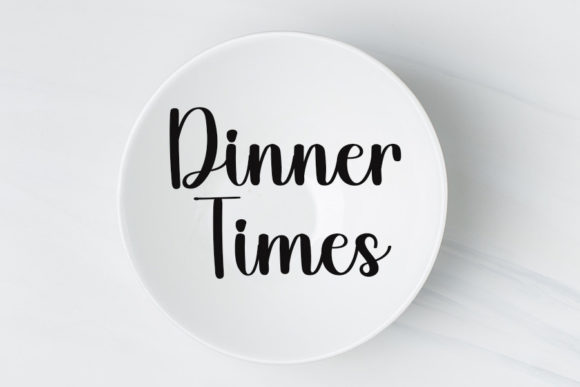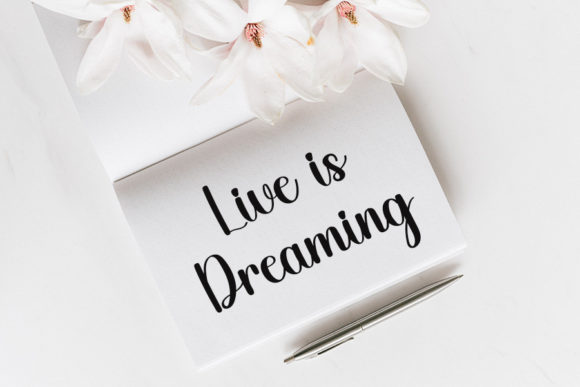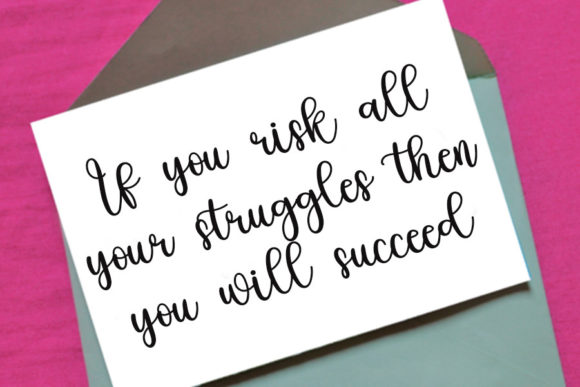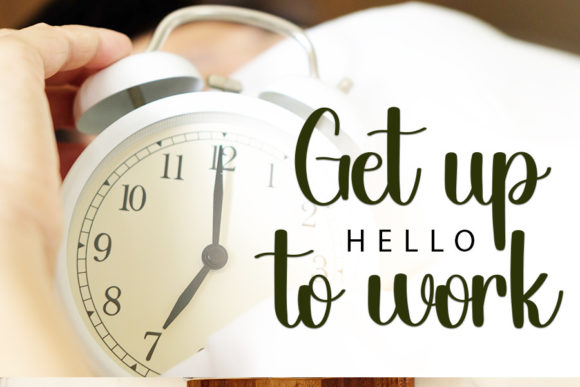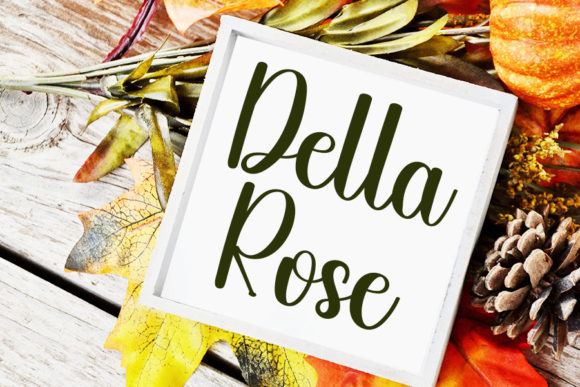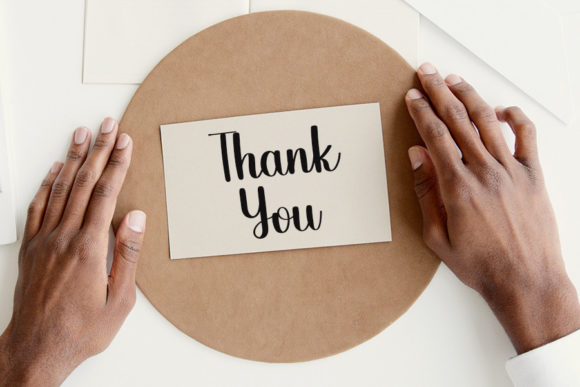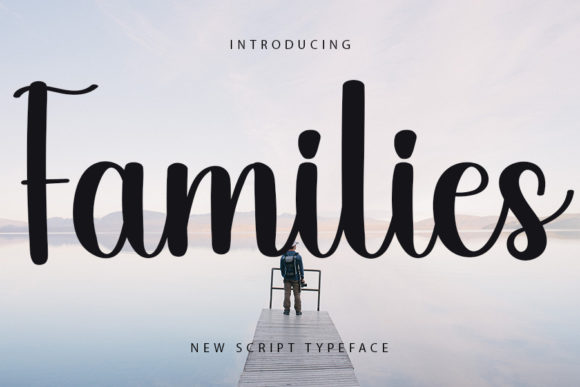
Introducing Families Font: A Timeless Calligraphy-Inspired Handwritten Font
Are you a designer or crafter looking for a stylish and contemporary font to elevate your creative projects? Look no further than Families Font, a beautiful handwritten font that exudes a sense of classic elegance with a modern twist. Inspired by timeless calligraphy, Families Font is the perfect addition to your font collection.
What Makes Families Font Special?
Families Font is a stylish handwritten font that boasts a contemporary atmosphere and impeccable form. Its unique blend of classic and modern elements makes it an ideal choice for a wide range of creative projects, from branding and advertising to packaging and stationery. With its elegant lines and flowing curves, Families Font is sure to add a touch of sophistication to any design.
Families Font is a versatile font that is perfect for designers and crafters alike. Whether you’re working on a commercial project or a personal craft, this font is sure to impress. Its elegant and refined aesthetic makes it an excellent choice for:
- Branding and logo design
- Stationery and invitations
Key Features of Families Font
Here are some of the key features that make Families Font a standout choice:
- Stylish handwritten font with a contemporary atmosphere
- Inspired by timeless classic calligraphy
- Elegant lines and flowing curves
- Impeccable form and refined aesthetic
- Perfect for a wide range of creative projects
Why Choose Families Font?
- Unique and distinctive aesthetic
- High-quality font with impeccable form
- Perfect for designers and crafters alike
In conclusion, Families Font is a stylish and sophisticated handwritten font that is perfect for designers and crafters looking to add a touch of elegance to their creative projects. With its timeless calligraphy-inspired aesthetic, PUA encoding, and impeccable form, this font is sure to impress. Whether you’re working on a commercial project or a personal craft, Families Font is an excellent choice.